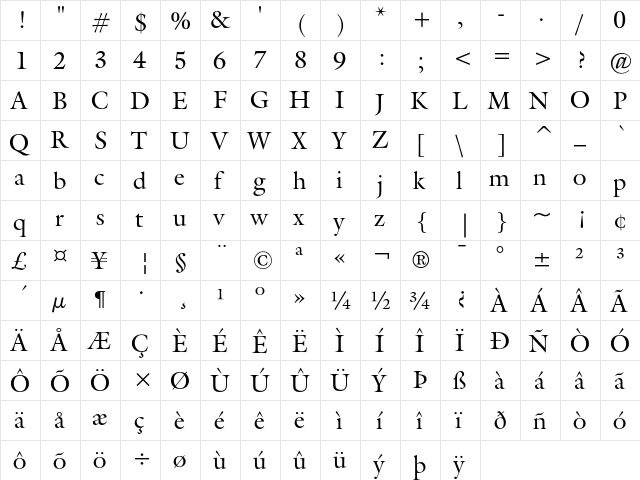
ITC Galliard Regular
Design Context for ITC Galliard Typeface
ITC Galliard is a composed and adaptable typeface that performs quietly and consistently across a wide range of design contexts.